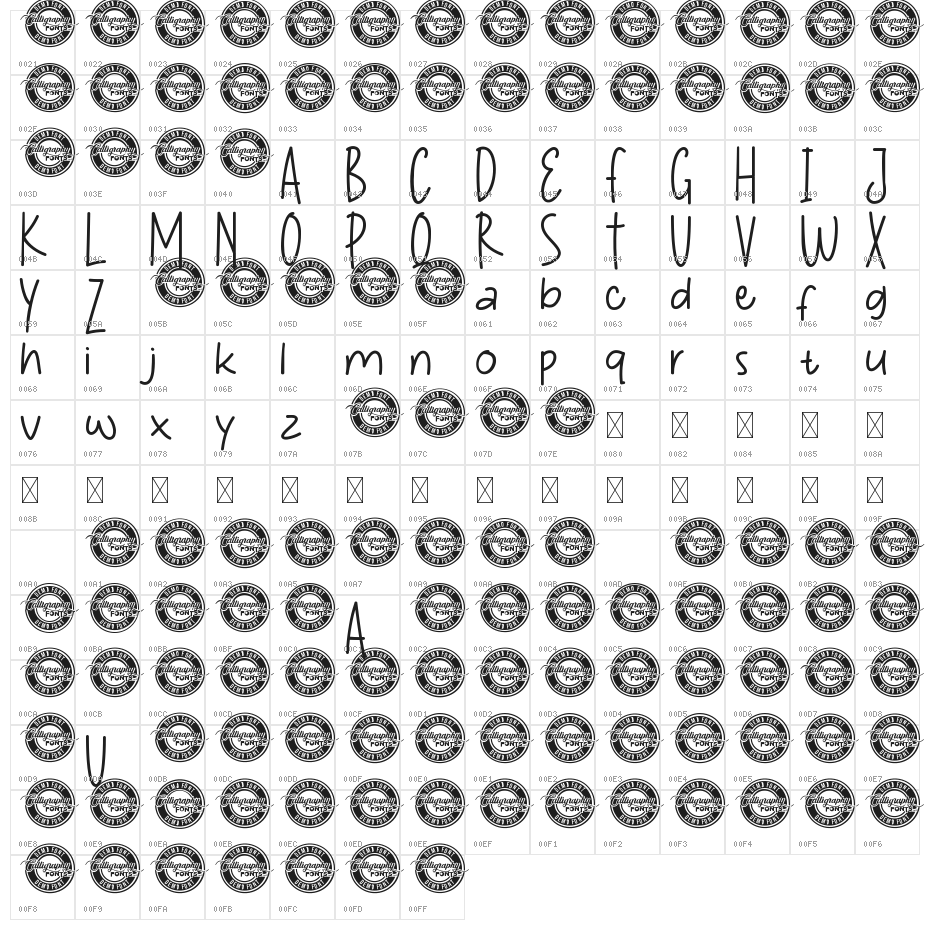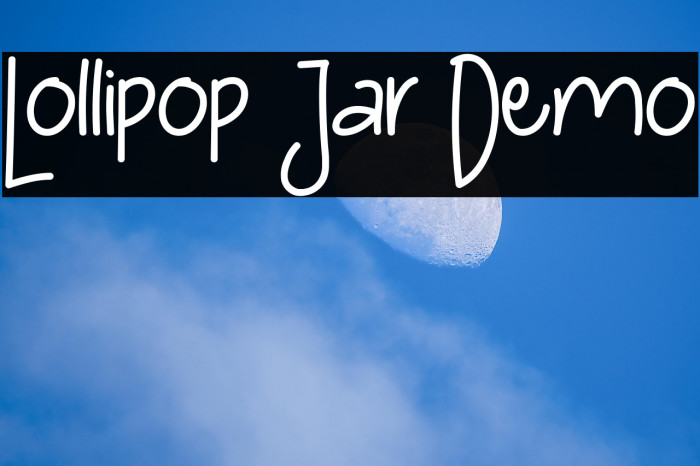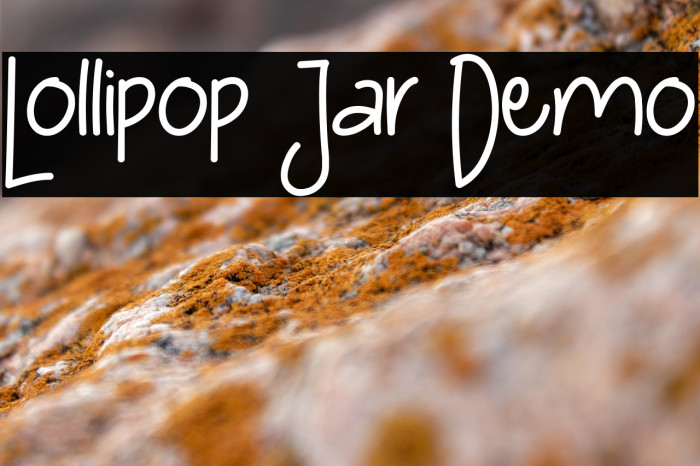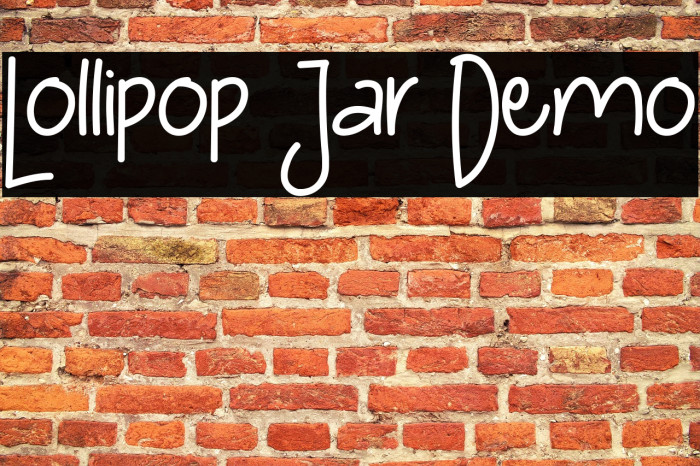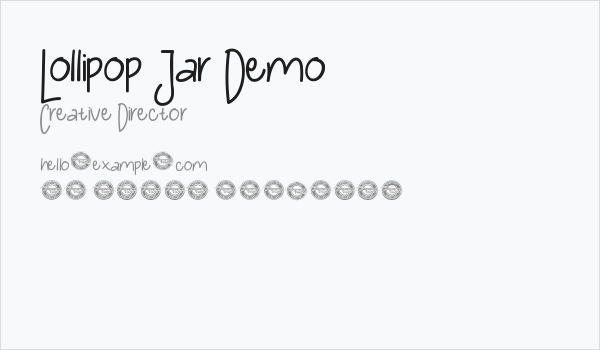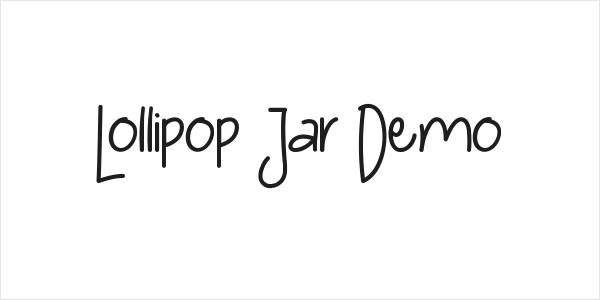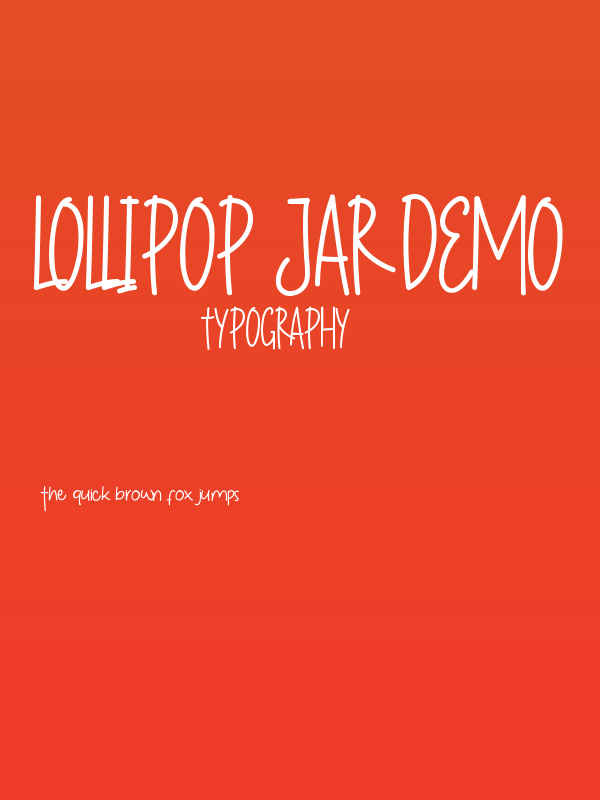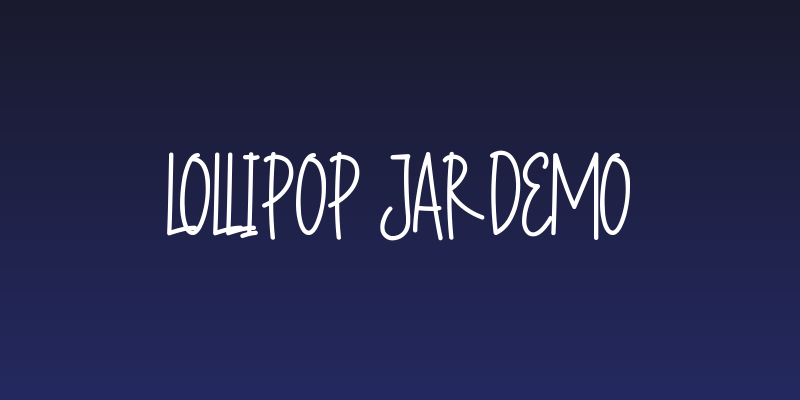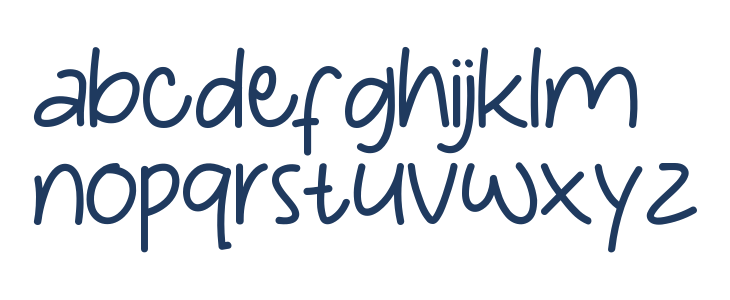
Lollipop Jar Demo Font
Lollipop Jar Demo Description
This playful and whimsical font features tall, narrow letters with a hand-drawn aesthetic. The uppercase characters are particularly elongated, giving them a unique and quirky appearance. The lowercase letters maintain a consistent style, with rounded edges and a slightly irregular baseline that adds to the font's charm. The overall look is casual and friendly, making it suitable for projects that require a personal touch. The font includes a full set of uppercase and lowercase letters, numbers, and a selection of special characters, ensuring versatility in design applications.
| Overall Style | Casual and whimsical |
| Proposed Projects | Ideal for children's book covers, playful branding, greeting cards, and creative posters. |